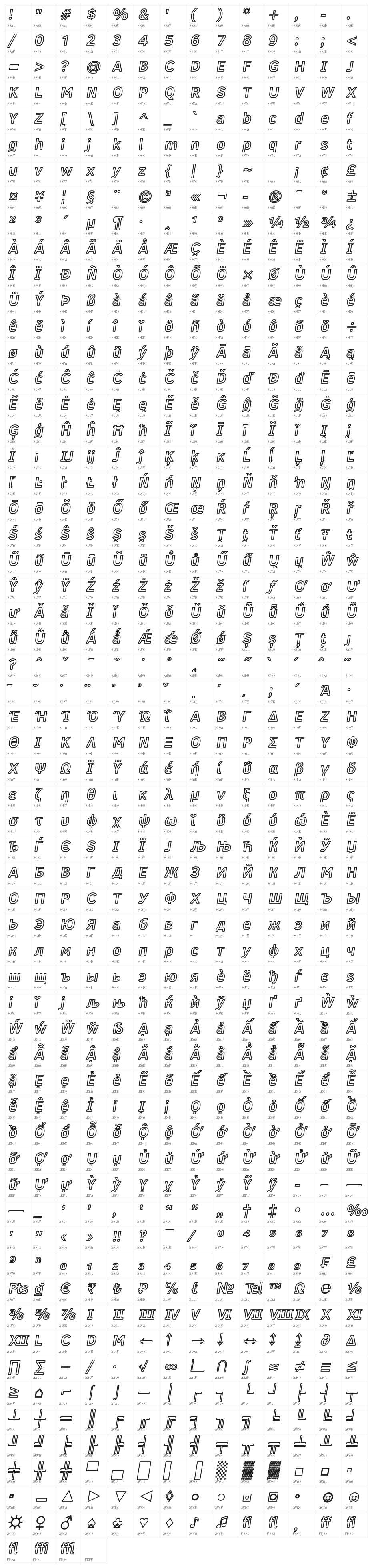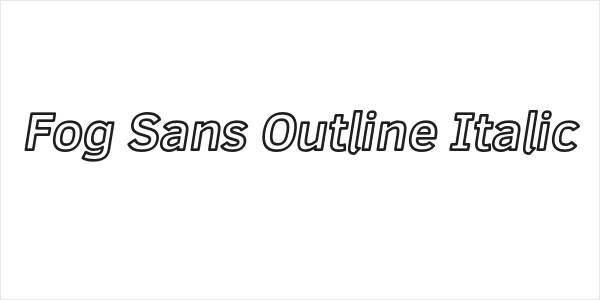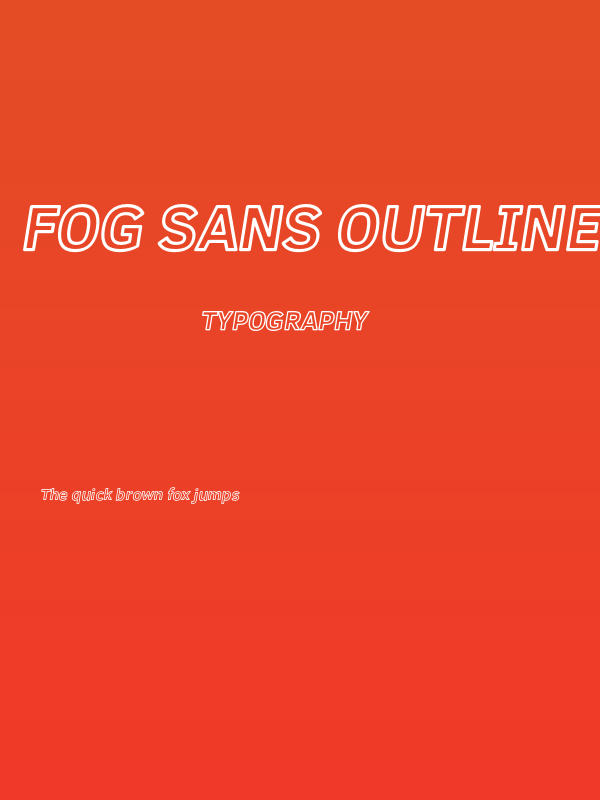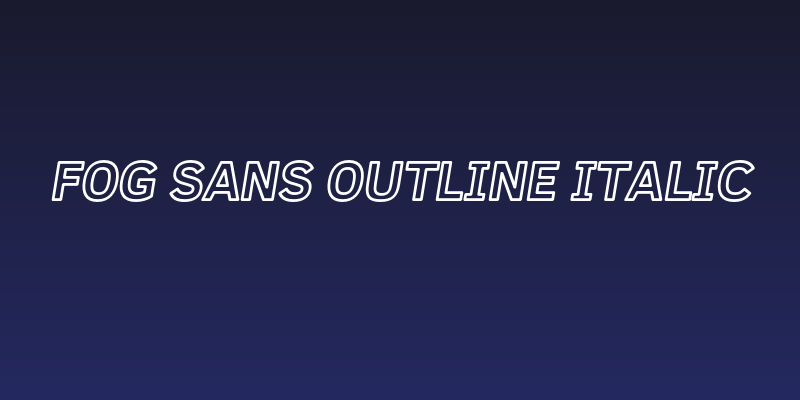
Fog Sans Outline Italic Font
Fog Sans Outline Italic Description
This font features a clean, modern sans-serif style with an outline effect that adds a unique dimension to the characters. The italicized form gives it a dynamic and forward-leaning appearance, making it suitable for contemporary designs. The uppercase and lowercase letters maintain a consistent stroke width, contributing to a balanced and harmonious look. The numerals and special characters are designed with the same outline style, ensuring uniformity across all glyphs. This font's open and airy design makes it highly legible, even at smaller sizes.
| Proposed Projects | Ideal for branding, headlines, posters, and any project requiring a modern and stylish touch. |